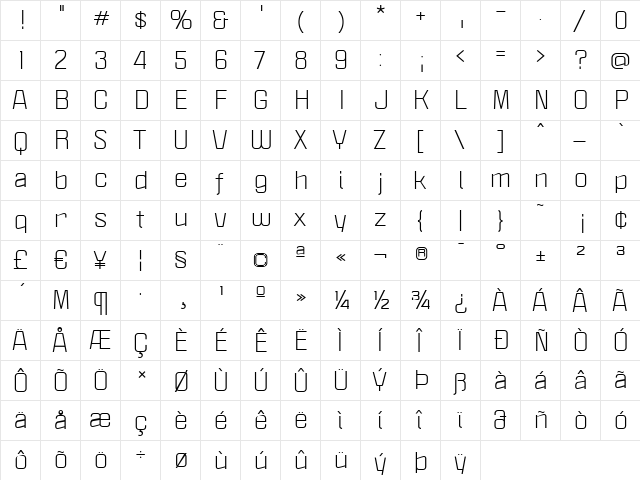
Politica XT Regular
| Foundry | Alejandro Paul |
| Designer | Alejandro Paul & Alfredo Graziani |
Design Context for Politica XT Typeface
Politica XT offers clean, dependable letterforms without strong stylistic allegiance, making it a practical choice for designers who need flexibility.